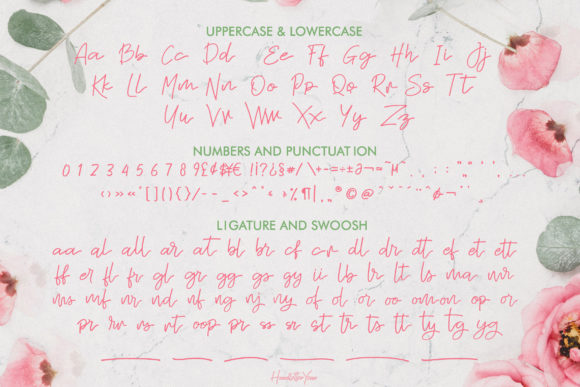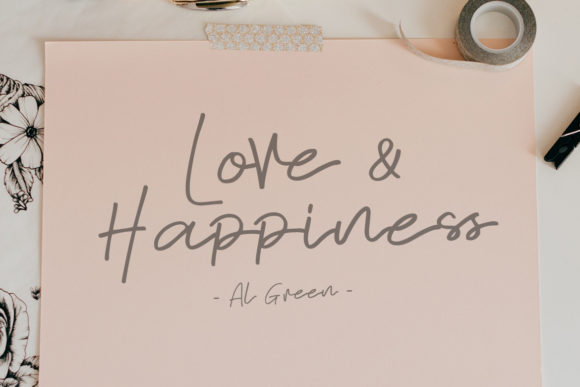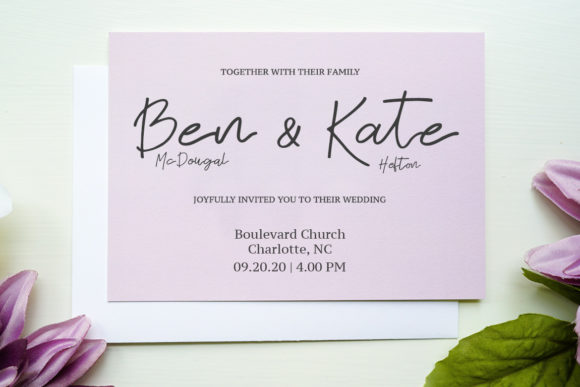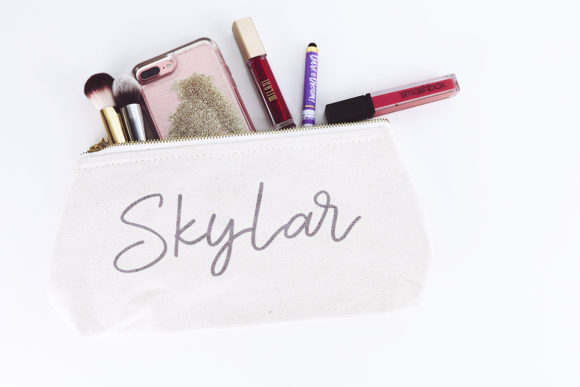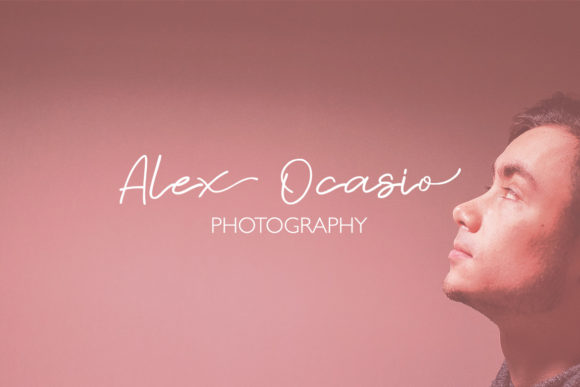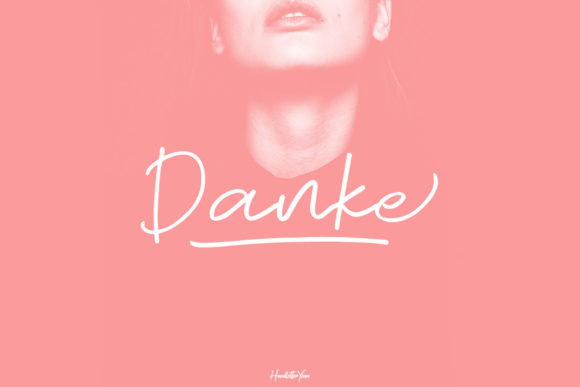
Introduction to Sabina Font
Have you ever found yourself stuck in the middle of a creative project, desperate for the perfect font to elevate your design? You’ve scrolled through countless options, but nothing seems to capture the essence of your vision. For designers, finding that perfect font can be a game-changer, and that’s exactly what the Sabina Font aims to deliver.
With its elegant and beautiful monoline design, the Sabina Font is a standout choice for any creative project. Whether you’re working on a high-quality brochure, a design resource for a client, or simply a personal project, this font is sure to make your work stand out. And the best part? The Sabina Font comes with a range of features, including ligatures, alternates, swooshes, and underlines, making it a valuable addition to any designer’s toolkit.
Sabina Font
- High-quality design resource suitable for creative projects.
- Includes a comprehensive character set, including uppercase and lowercase letters, numbers, and punctuation marks.
- Designed with a clean and modern aesthetic, making it perfect for a variety of design applications.
Honest Review: Sabina Font
I recently came across the Sabina Font, and I must say it’s been a great addition to my design resource library. ✨ The font’s elegant and modern design makes it perfect for a wide range of creative projects, from branding to digital interfaces.
The font’s high quality is immediately noticeable, with crisp lines and smooth curves. It’s available for free download, which is a major plus for designers on a budget. The transparent background option also gives me more flexibility when working with the font in different design scenarios.
Here are some of the features I like about the Sabina Font:
- Modern and elegant design
- High quality typography
- Only available in a limited number of font styles
- No bold or italic variations available
Overall, I’m impressed with the Sabina Font and would definitely recommend it to fellow designers. While it may not be the most comprehensive font library, its high quality and free availability make it a valuable design resource.
Getting the Most Out of Sabina Font
To get the most out of Sabina Font, experiment with different font sizes, colors, and styles. Use it in combination with other design elements to create a unique and creative project.
Sabina Font is commonly used in a variety of creative projects, including logos, brochures, business cards, and social media graphics. Its high-quality and transparent background make it an ideal choice for any design project requiring a unique and eye-catching font.